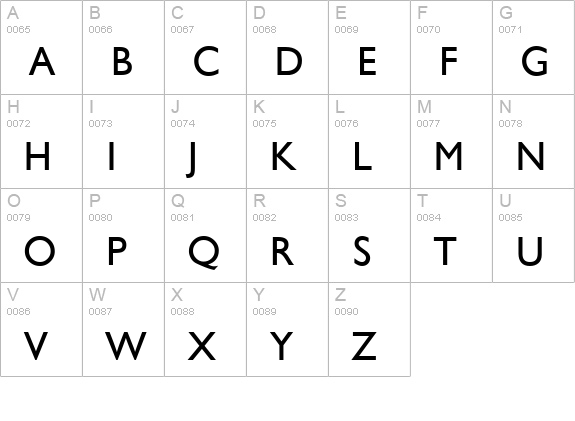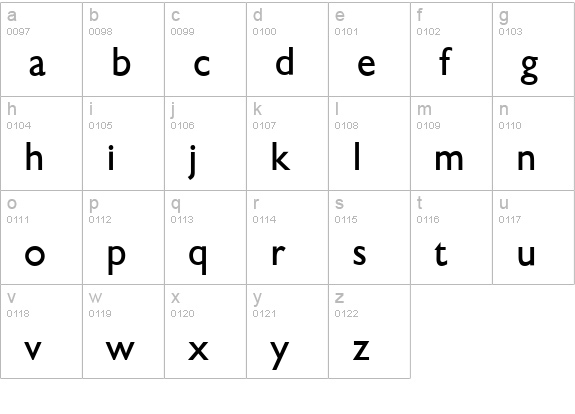
Gibson-Regular is the standard, neutral variant in the Gibson typeface family \xE2\x80\x94 well suited to general body text, paragraphs, and standard typographic work.
Gibson-Regular font is a timeless and versatile typeface that exudes elegance and sophistication. With its clean lines and classic appeal, it is perfect for a wide range of design projects, from branding to print materials. The font's balanced proportions and gentle curves make it easy to read and pleasant to look at. Whether you're creating a logo, a website, or a poster, Gibson-Regular font will add a touch of refinement to your work. Best of all, Gibson-Regular font is available for free download at FontsMarket.com. Simply visit the website and start using this beautiful font in your projects today. Don't miss out on this opportunity to enhance your designs with the timeless appeal of Gibson-Regular font.